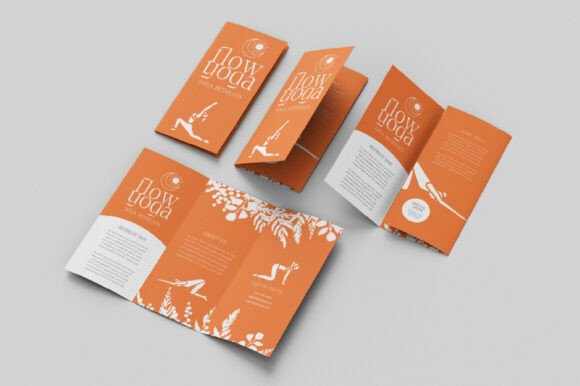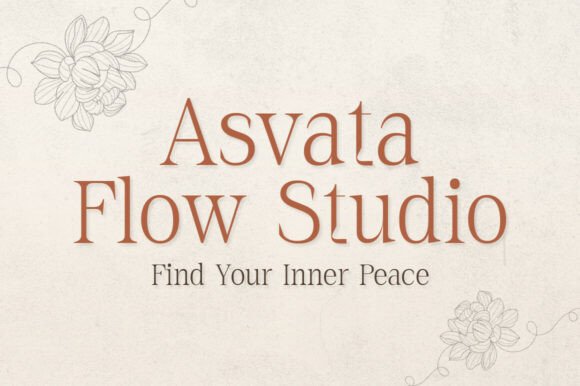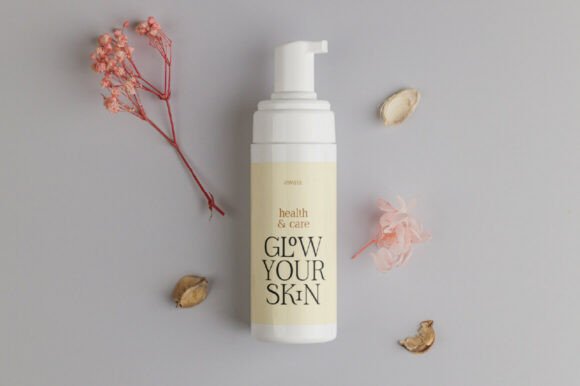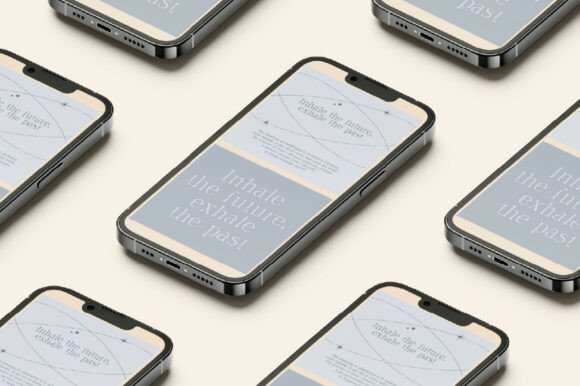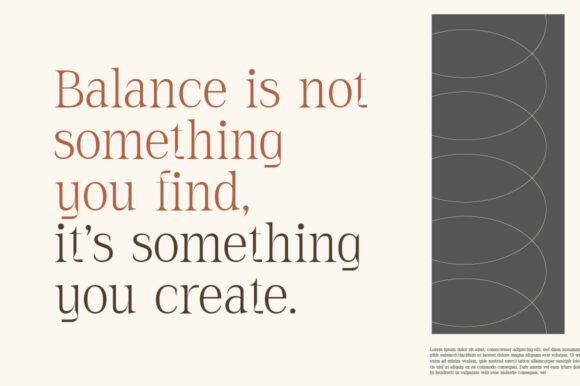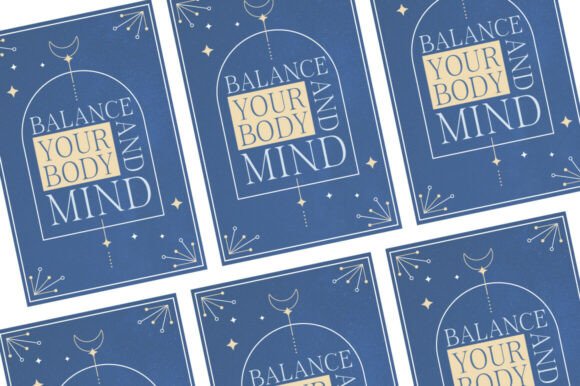
Discover the Elegance of Asvata Font: A Timeless Serif for Mindful Design
In the world of typography, few fonts manage to convey a sense of tranquility and elegance as effectively as Asvata. This timeless serif font is designed to bring a touch of organic sophistication to any design project, making it an ideal choice for wellness branding, yoga studios, holistic product packaging, and mindful design. With its refined contrast, organic curves, and tranquil presence, Asvata is poised to become a favorite among designers and crafters seeking to create a sense of balance and clarity in their work.
The Essence of Asvata: Elegance and Spiritual Depth
Asvata’s design is rooted in a deep understanding of the importance of elegance and spiritual depth in visual communication. Each letterform is carefully crafted to evoke a sense of balance and harmony, making it perfect for projects that require a soft yet professional voice. Whether you’re working on editorial content, logo design, or digital projects, Asvata offers a level of versatility that is hard to find in other fonts.
Key Features of Asvata Font
- Timeless Serif Design: Asvata boasts a classic serif design that exudes elegance and sophistication.
- Organic Curves: The font features organic curves that add a touch of warmth and humanity to any design.
- Refined Contrast: Asvata’s refined contrast enhances readability, making it suitable for a wide range of applications.
- Tranquil Presence: The font’s tranquil presence makes it perfect for wellness branding, yoga studios, and holistic product packaging.
Applications of Asvata Font
Asvata’s unique blend of elegance and tranquility makes it an excellent choice for various design projects. Some of the ideal applications for Asvata include:
- Wellness Branding: Create a serene and inviting brand identity with Asvata’s elegant letterforms.
- Yoga Studios: Convey a sense of balance and harmony in your yoga studio’s branding and marketing materials.
- Holistic Product Packaging: Add a touch of sophistication and elegance to your holistic product packaging with Asvata.
- Mindful Design: Create digital and print materials that promote mindfulness and tranquility with Asvata’s soft yet professional voice.
Why Choose Asvata Font?
With so many fonts available, why choose Asvata for your design projects? Here are a few compelling reasons:
- Uniqueness: Asvata’s distinctive design sets it apart from other serif fonts, ensuring your projects stand out.
- Versatility: The font’s versatility makes it suitable for a wide range of applications, from editorial content to logo design.
- Elegance: Asvata’s elegant letterforms add a touch of sophistication to any design project.
- Tranquility: The font’s tranquil presence creates a sense of calm and serenity, perfect for wellness and mindful design projects.
Tips for Using Asvata Font Effectively
To get the most out of Asvata, consider the following tips:
- Pair with Complementary Fonts: Combine Asvata with sans-serif fonts for a striking contrast.
- Experiment with Colors: Try pairing Asvata with calming colors like blues and greens to enhance its tranquil presence.
- Pay Attention to Spacing: Ensure adequate spacing between letters and lines to maintain readability and elegance.
Asvata font is a beautiful addition to any designer’s toolkit, offering a unique blend of elegance, tranquility, and versatility. Whether you’re working on wellness branding, yoga studios, holistic product packaging, or mindful design, Asvata is sure to bring a touch of sophistication and calm to your projects. With its timeless serif design, organic curves, refined contrast, and tranquil presence, Asvata is poised to become a favorite among designers and crafters seeking to create a sense of balance and clarity in their work.